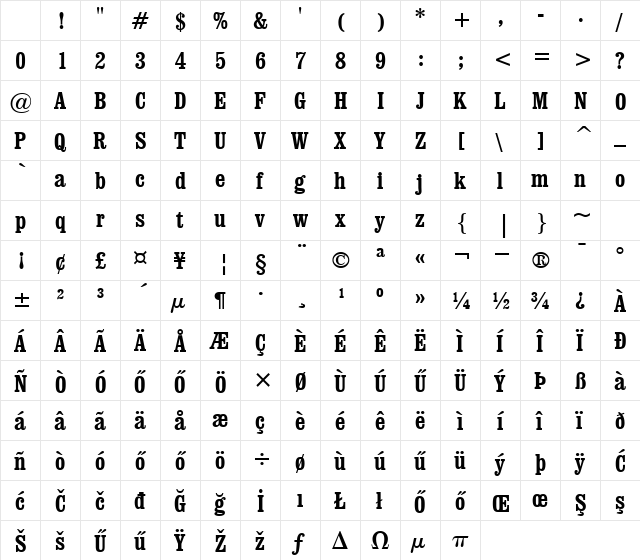
H_Clarendon Bold Condensed BT features prominent, blocky serifs that give it a confident, grounded presence - equally at home in editorial settings and bold branding work. Its bold stroke weight gives it real presence on the page. Its narrow stance lets it pack a punch even in space-constrained designs.
Pro Tip: Use H_Clarendon Bold Condensed BT for headlines and subheadings where its slab serifs can make an impression. It also holds up well in mid-size body copy thanks to its sturdy construction.